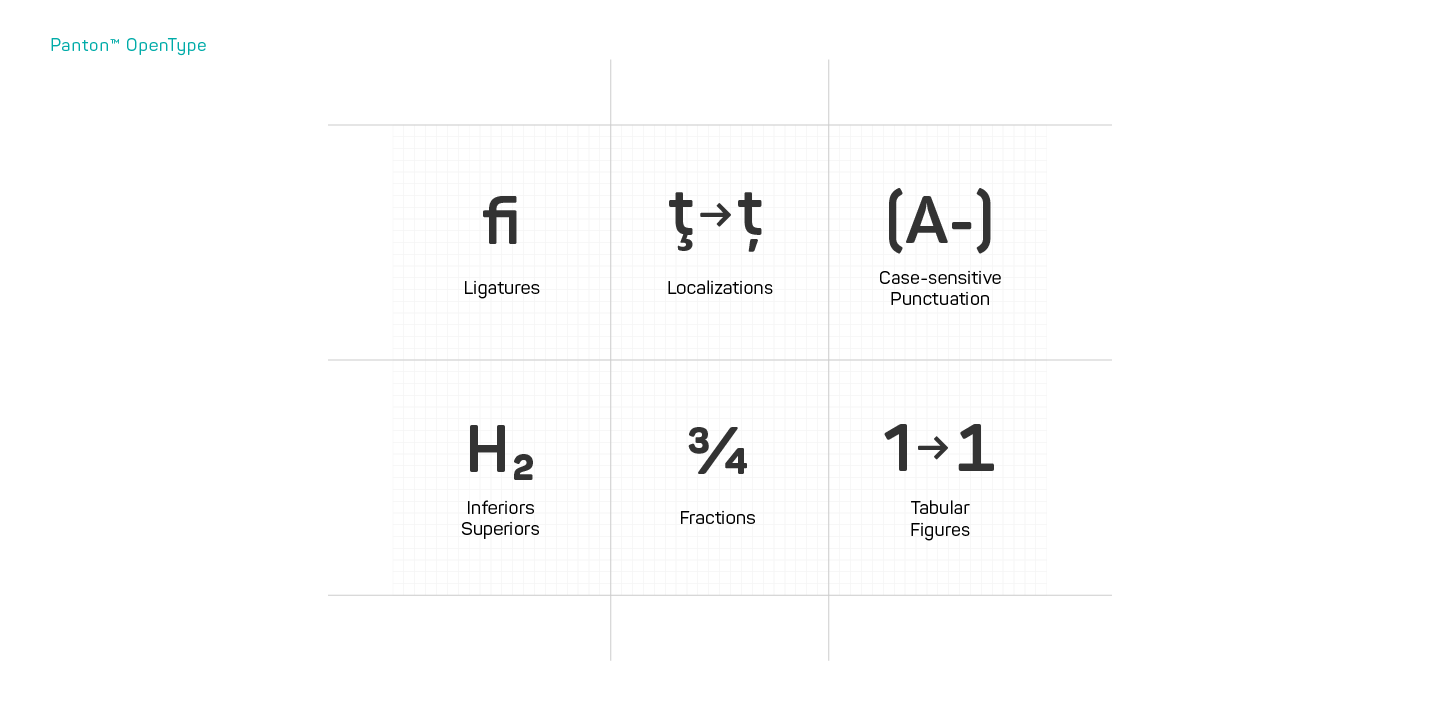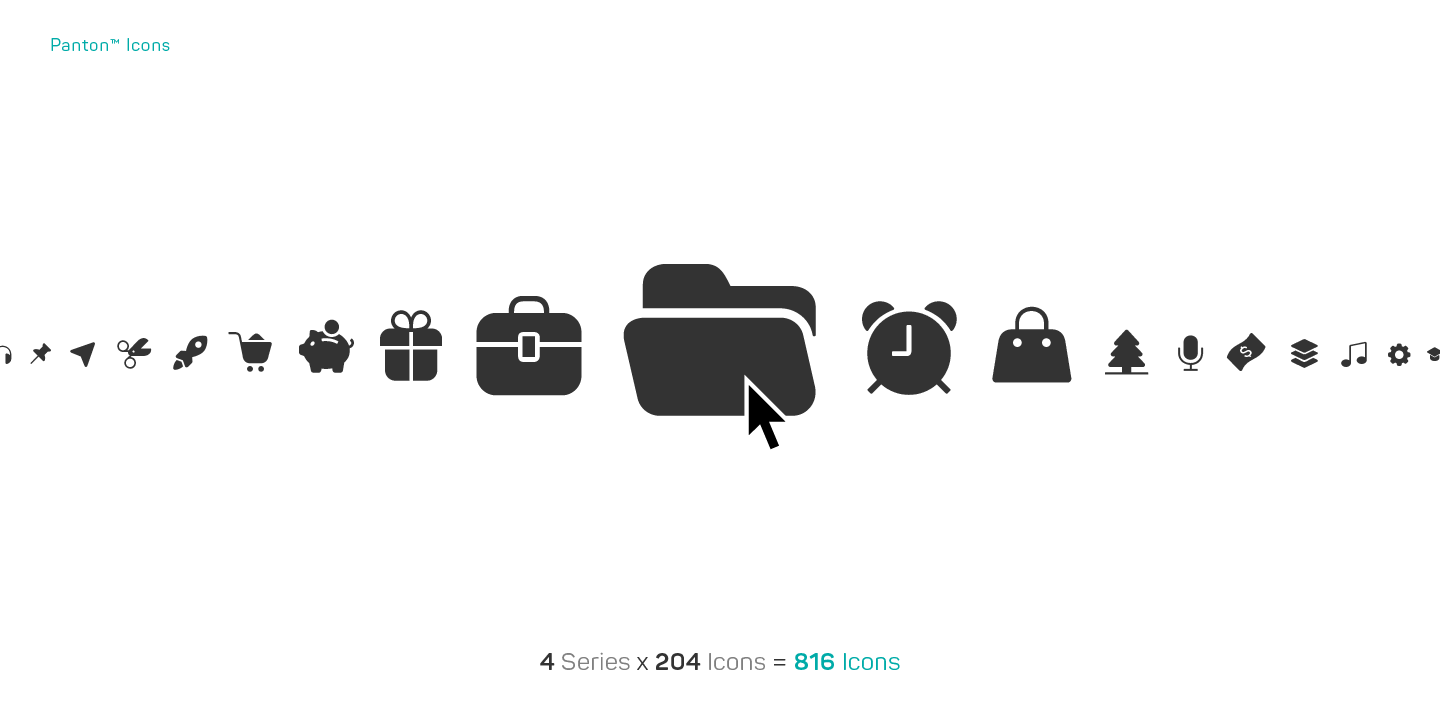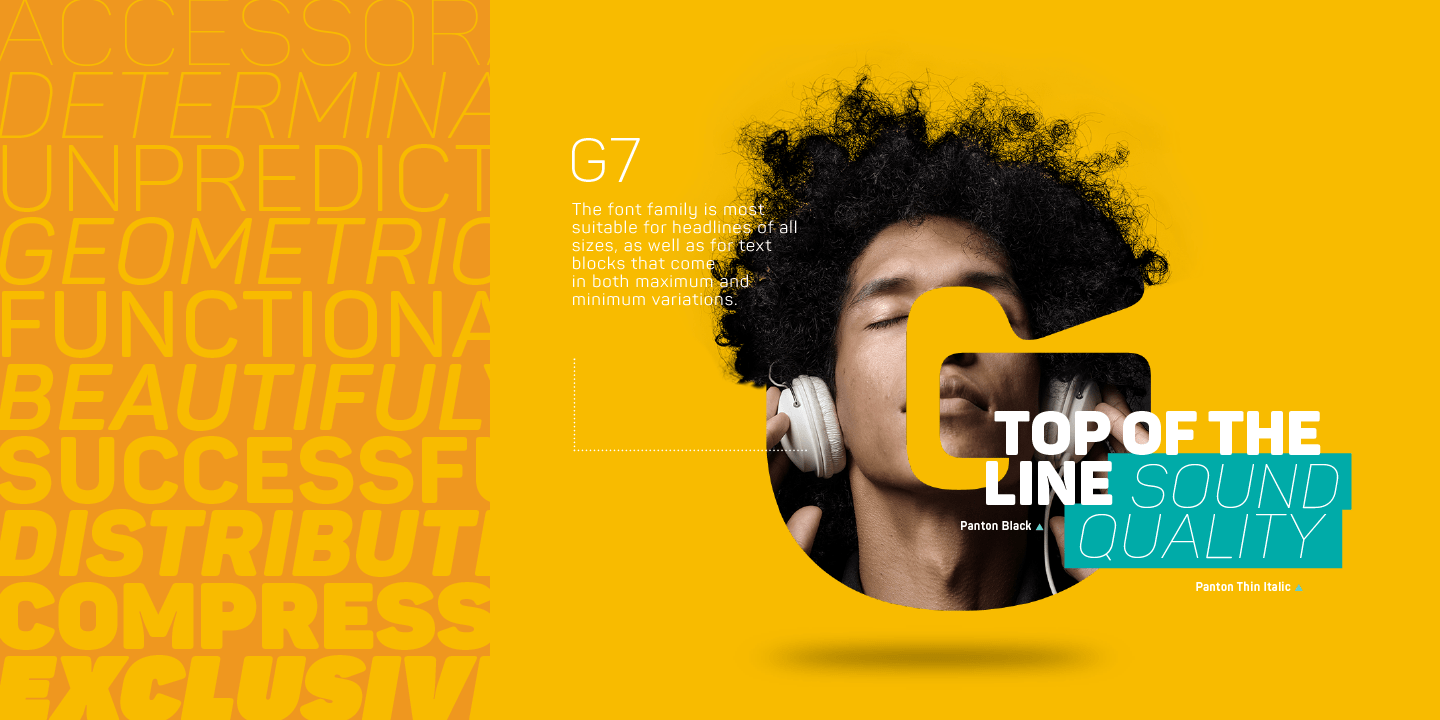
Panton has been expanded with Panton Narrow! It has 9 uprights and 9 matching italics ranging from Thin to Heavy. The Panton font family includes 54 fonts – 19 uprights with 19 matching italics and 16 icon sets as a bonus! It is characterized by excellent…